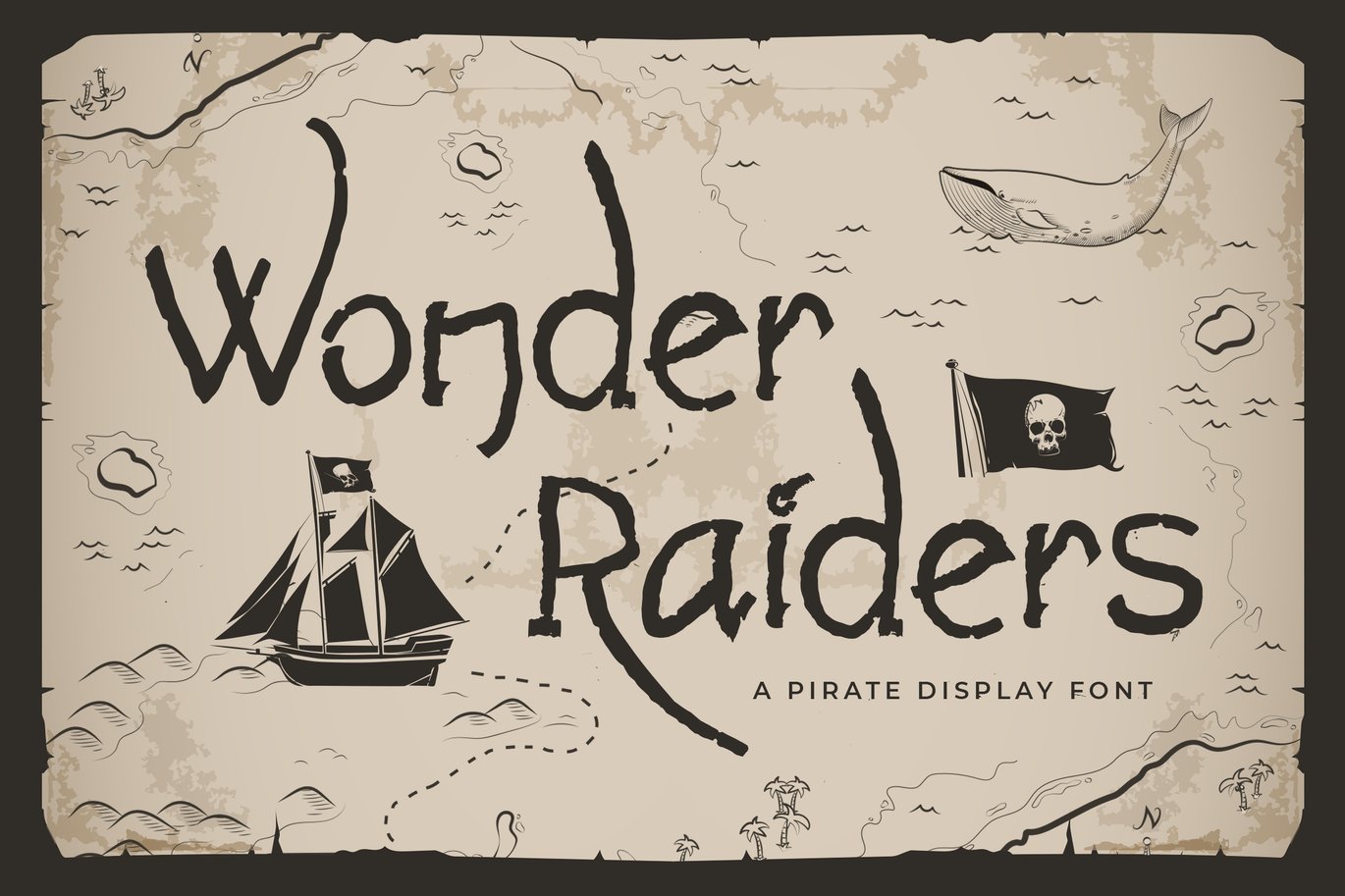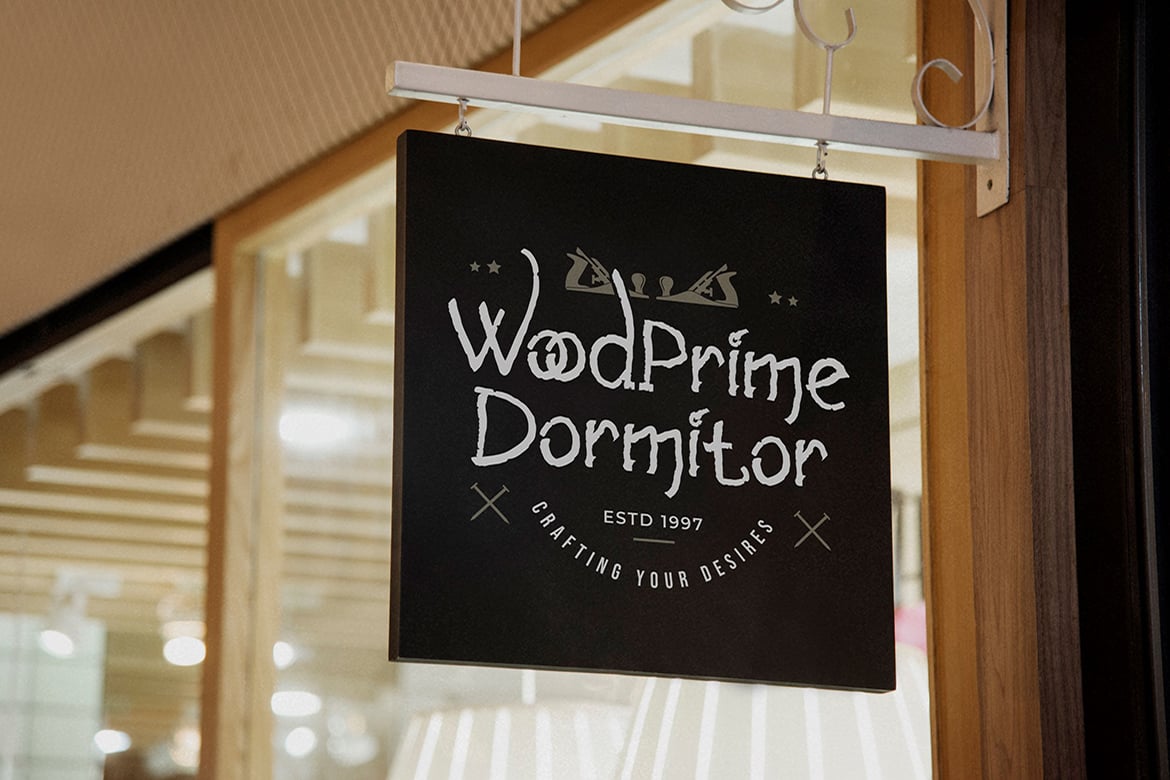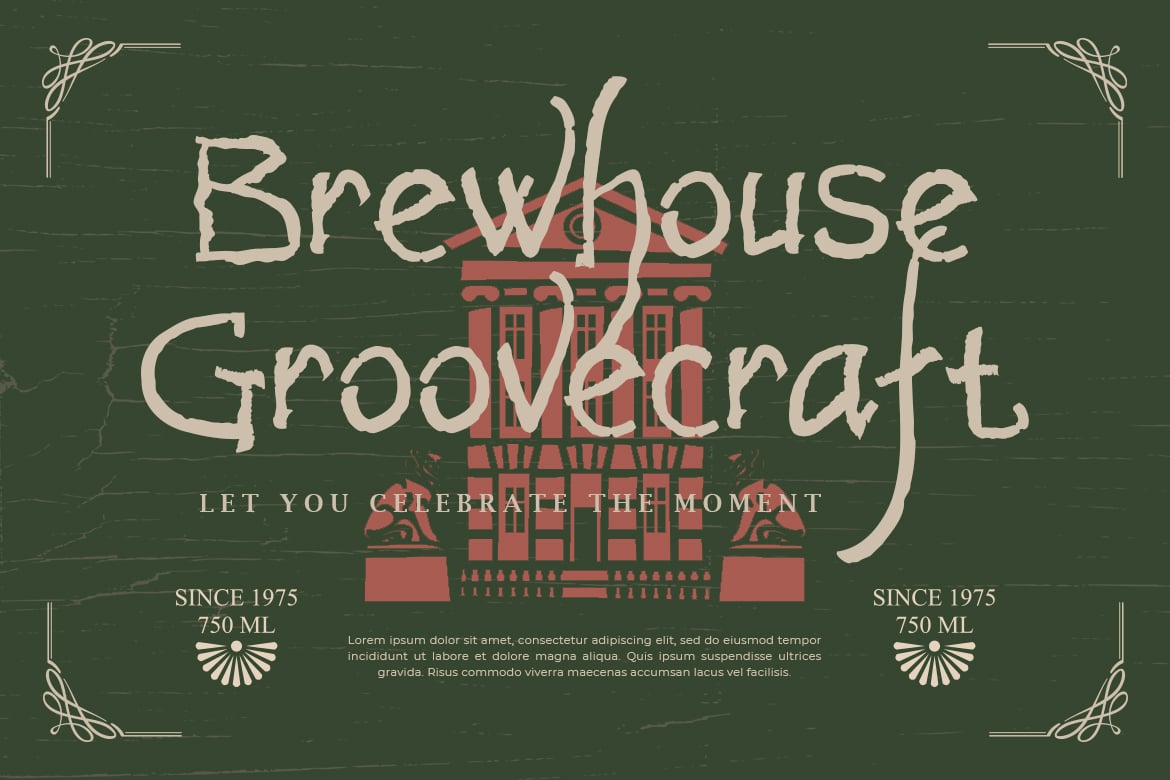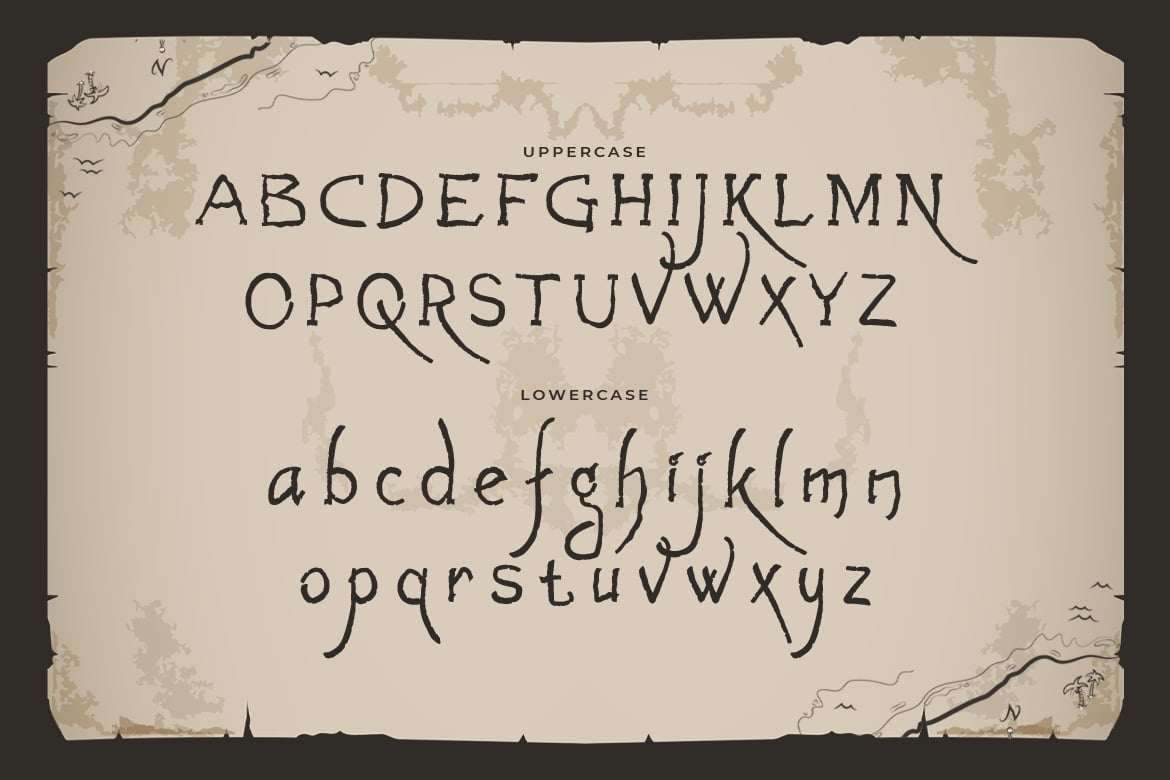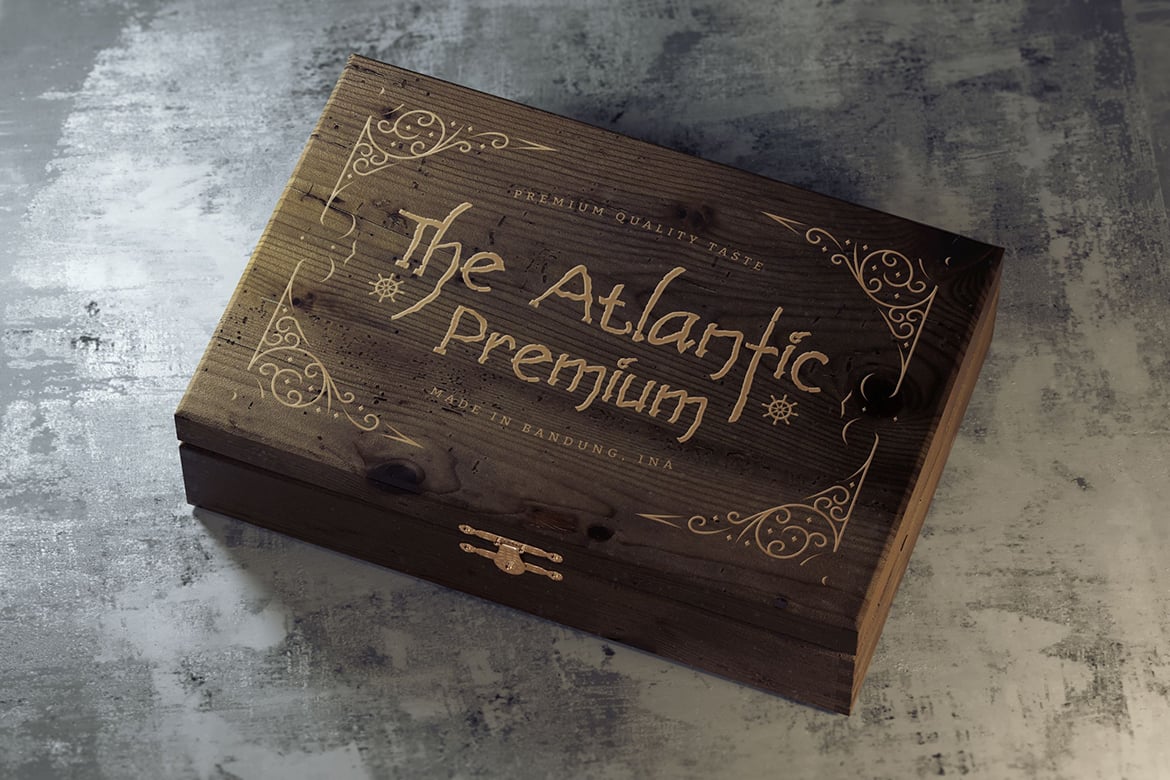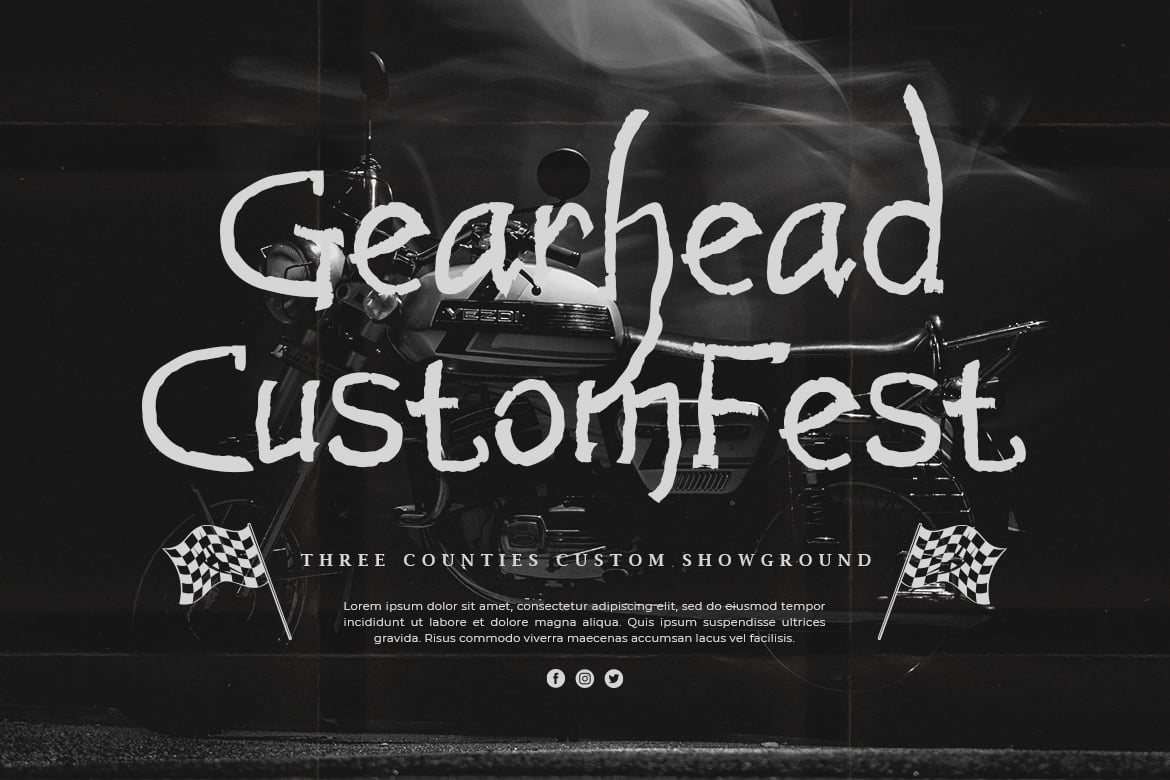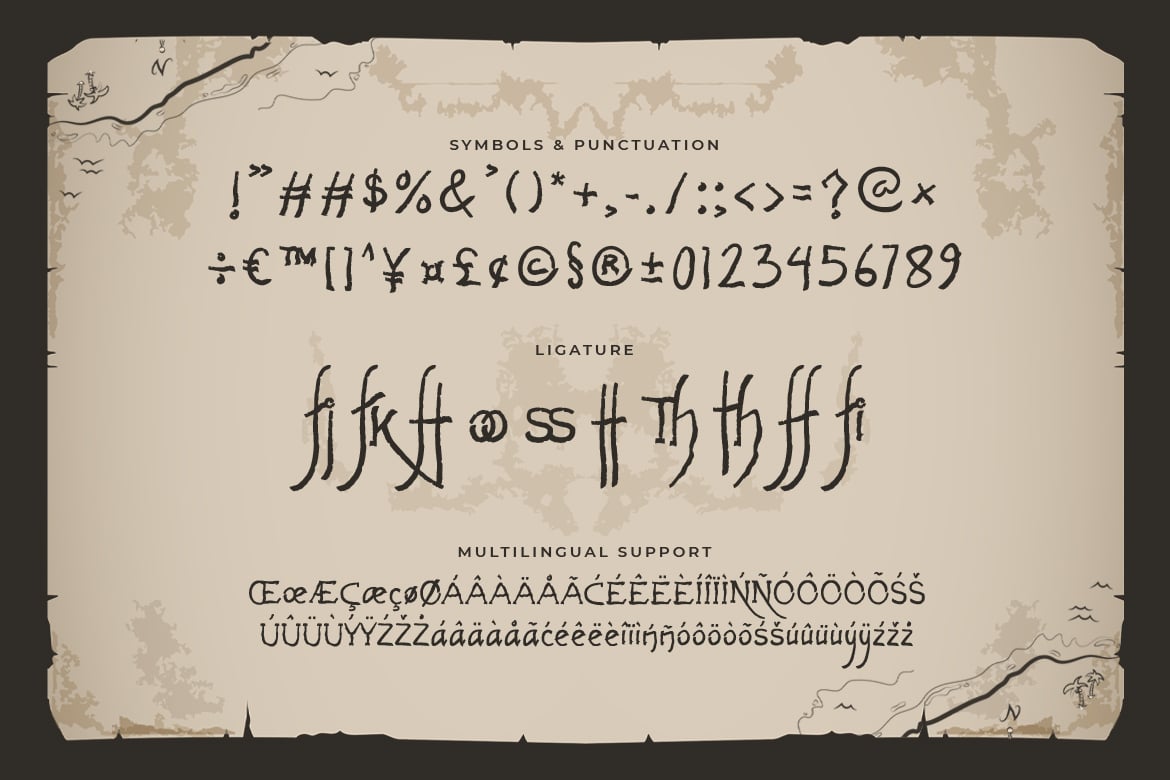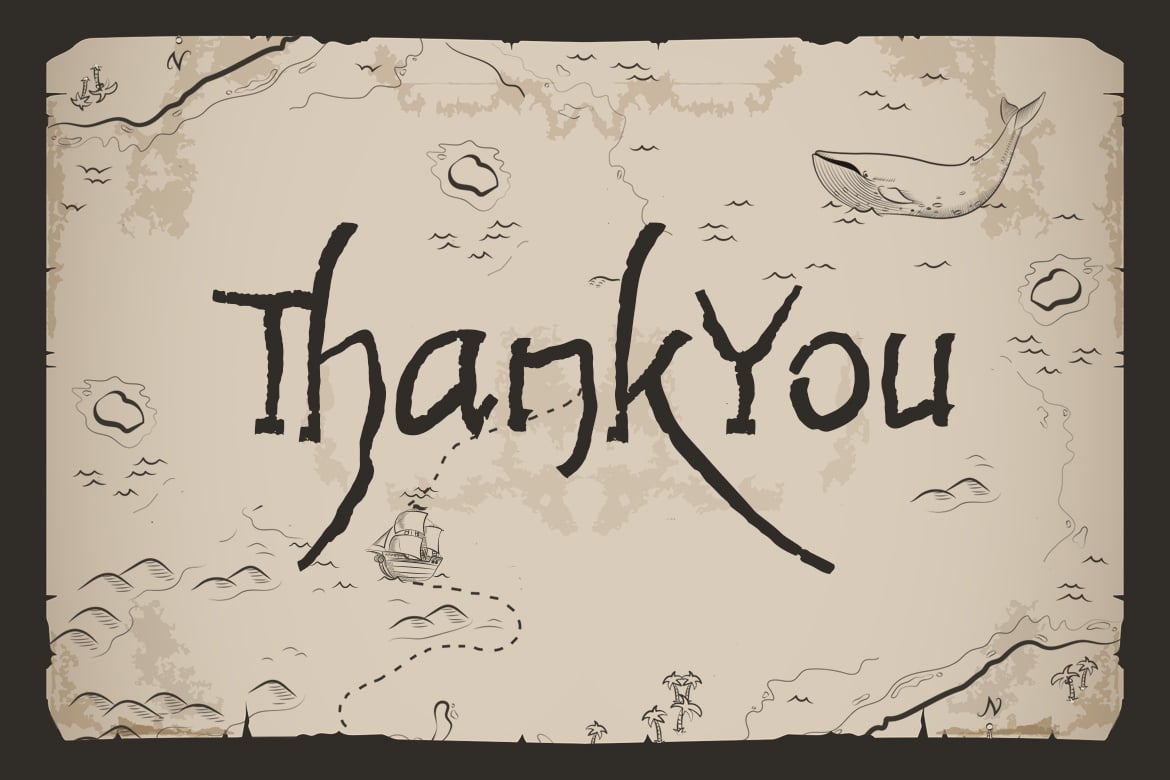
Wonder Raiders – Pirate Display Font
Embark on a swashbuckling journey with “Wonder Raiders” – a pirate display font that captures the adventurous spirit of the high seas!
With its bold and nautical-inspired letterforms, “Wonder Raiders” brings a touch of pirate charm to any project. Each character is meticulously designed to infuse your designs with maritime excitement, making it perfect for daring branding, captivating posters, pirate-themed events, and more.
Embrace the seafaring energy of “Wonder Raiders” as it effortlessly enhances your designs. Whether you’re crafting treasure map-inspired graphics, captivating event announcements, pirate-inspired logos, or eye-catching social media content, this typeface will captivate your audience with its adventurous and spirited style.
Set sail with “Wonder Raiders” and let your designs hoist the Jolly Roger of creativity!